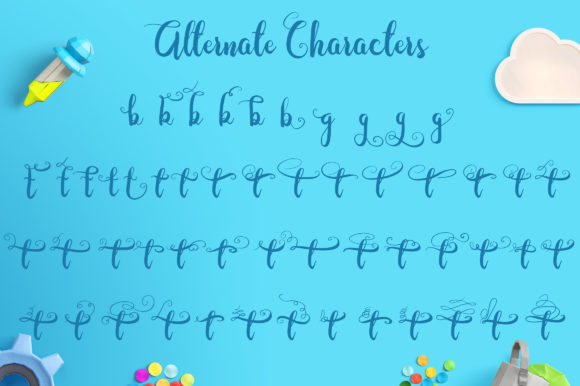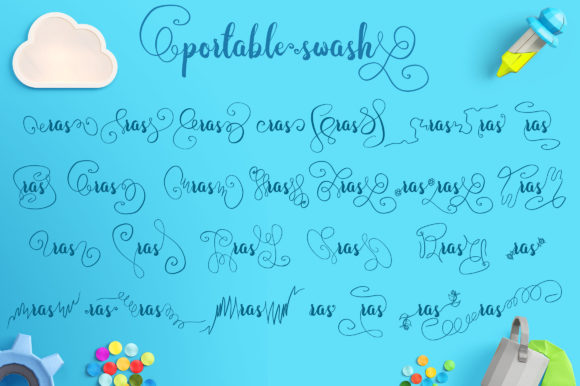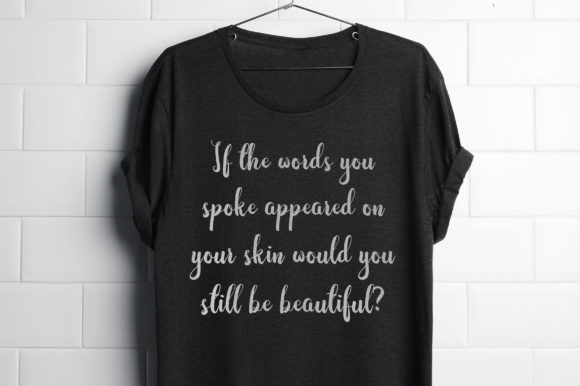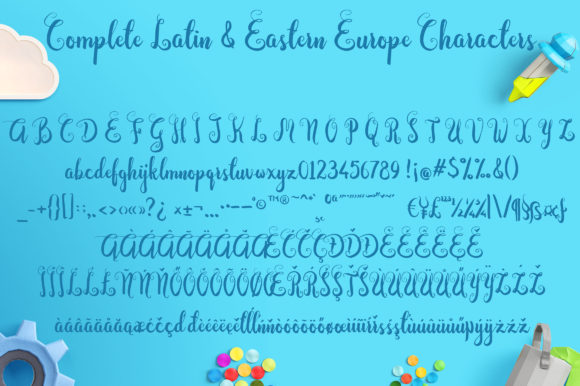
Dastan Script Font: A Whimsical and Romantic Typeface
Dastan is a fun and playful handwritten font with a romantic feel that’s perfect for designers and crafters looking to add a touch of whimsy to their projects. With its unique charm and elegant strokes, Dastan Script Font is sure to inspire creativity and bring a sense of joy to any design.
The Story Behind Dastan Script Font
Dastan Script Font is a carefully crafted typeface that’s designed to evoke a sense of romance and playfulness. Its creator, a skilled typographer, drew inspiration from traditional handwritten scripts and infused them with a modern twist. The result is a font that’s both elegant and fun, making it perfect for a wide range of design projects.
Key Features of Dastan Script Font
- Handwritten feel: Dastan Script Font has a distinctly handwritten feel that’s perfect for creating personal and intimate designs.
- Romantic charm: The font’s elegant strokes and flourishes give it a romantic charm that’s sure to captivate audiences.
- Playful vibe: Dastan Script Font has a playful vibe that’s perfect for designs that require a touch of whimsy and fun.
- Unique character: Each letter in the font has a unique character that sets it apart from other typefaces.
Uses for Dastan Script Font
Dastan Script Font is a versatile typeface that can be used in a wide range of design projects, including:
- Wedding invitations: The font’s romantic charm makes it perfect for wedding invitations, save-the-date cards, and other wedding-related designs.
- Branding: Dastan Script Font can be used to create unique and memorable brand identities that stand out from the crowd.
- Packaging: The font’s playful vibe makes it perfect for packaging designs that require a touch of whimsy and fun.
- Stationery: Dastan Script Font can be used to create beautiful and elegant stationery sets that are perfect for personal correspondence.
Tips for Using Dastan Script Font
To get the most out of Dastan Script Font, here are a few tips to keep in mind:
- Use it sparingly: Because of its unique character, it’s best to use Dastan Script Font sparingly to avoid overwhelming the design.
- Pair it with contrasting fonts: Pairing Dastan Script Font with contrasting fonts can help to create visual interest and add depth to the design.
- Experiment with colors: The font’s playful vibe makes it perfect for experimenting with bold and bright colors.
| Font Name | Dastan Script Font |
| Author | Royaltype |
Dastan Script Font is a fun and playful handwritten font with a romantic feel that’s perfect for designers and crafters looking to add a touch of whimsy to their projects. With its unique charm and elegant strokes, it’s sure to inspire creativity and bring a sense of joy to any design. Whether you’re creating wedding invitations, branding materials, or packaging designs, Dastan Script Font is a versatile typeface that’s sure to make your designs stand out.